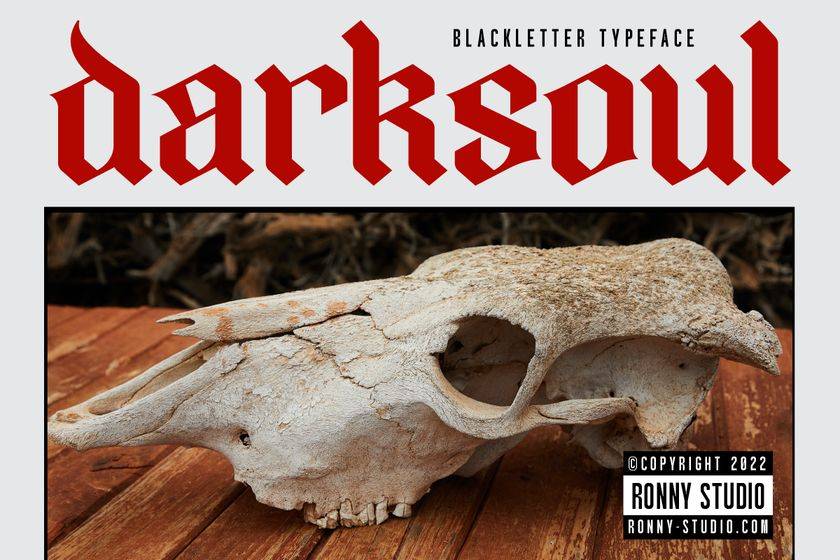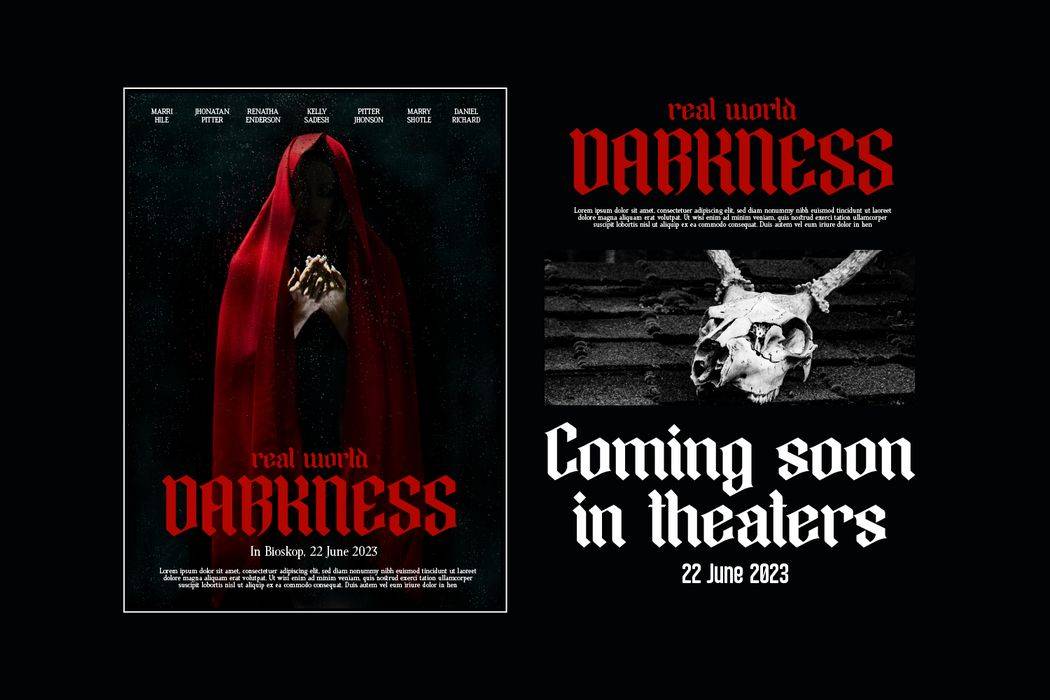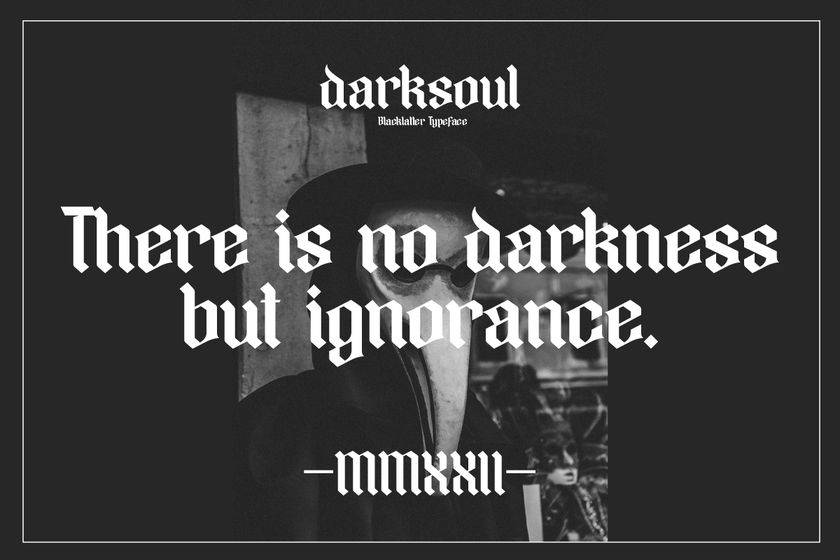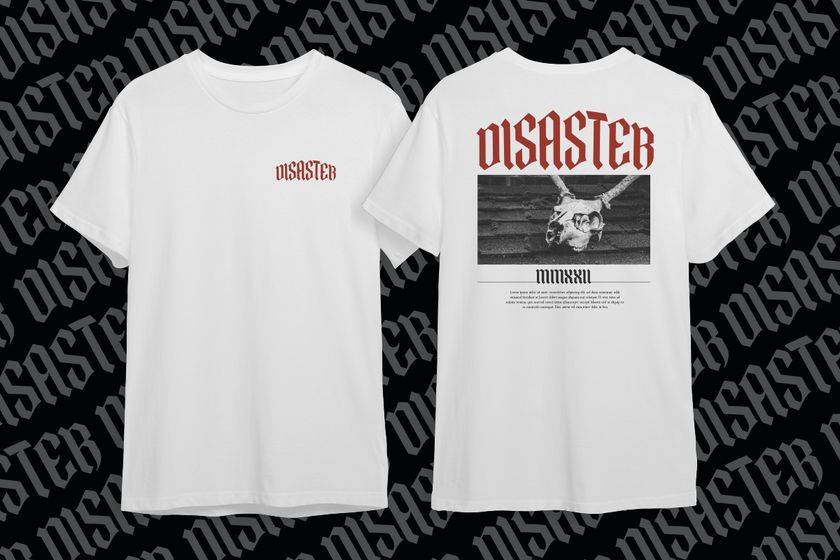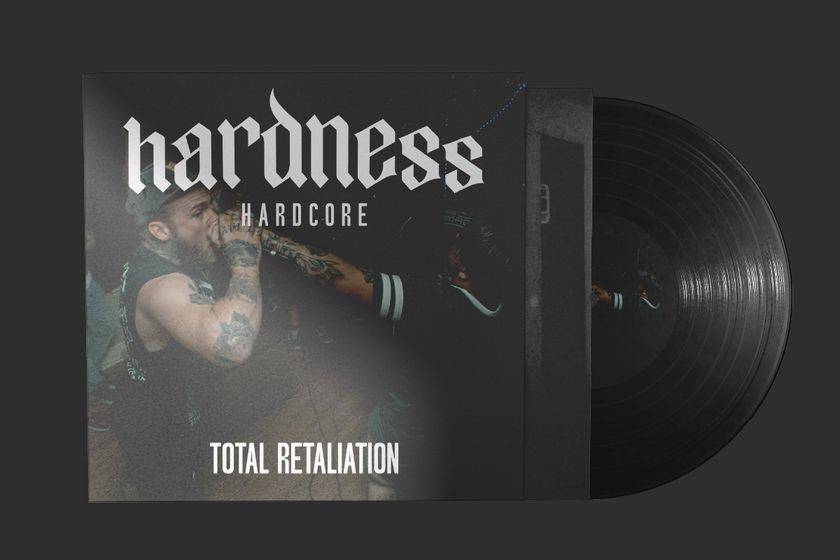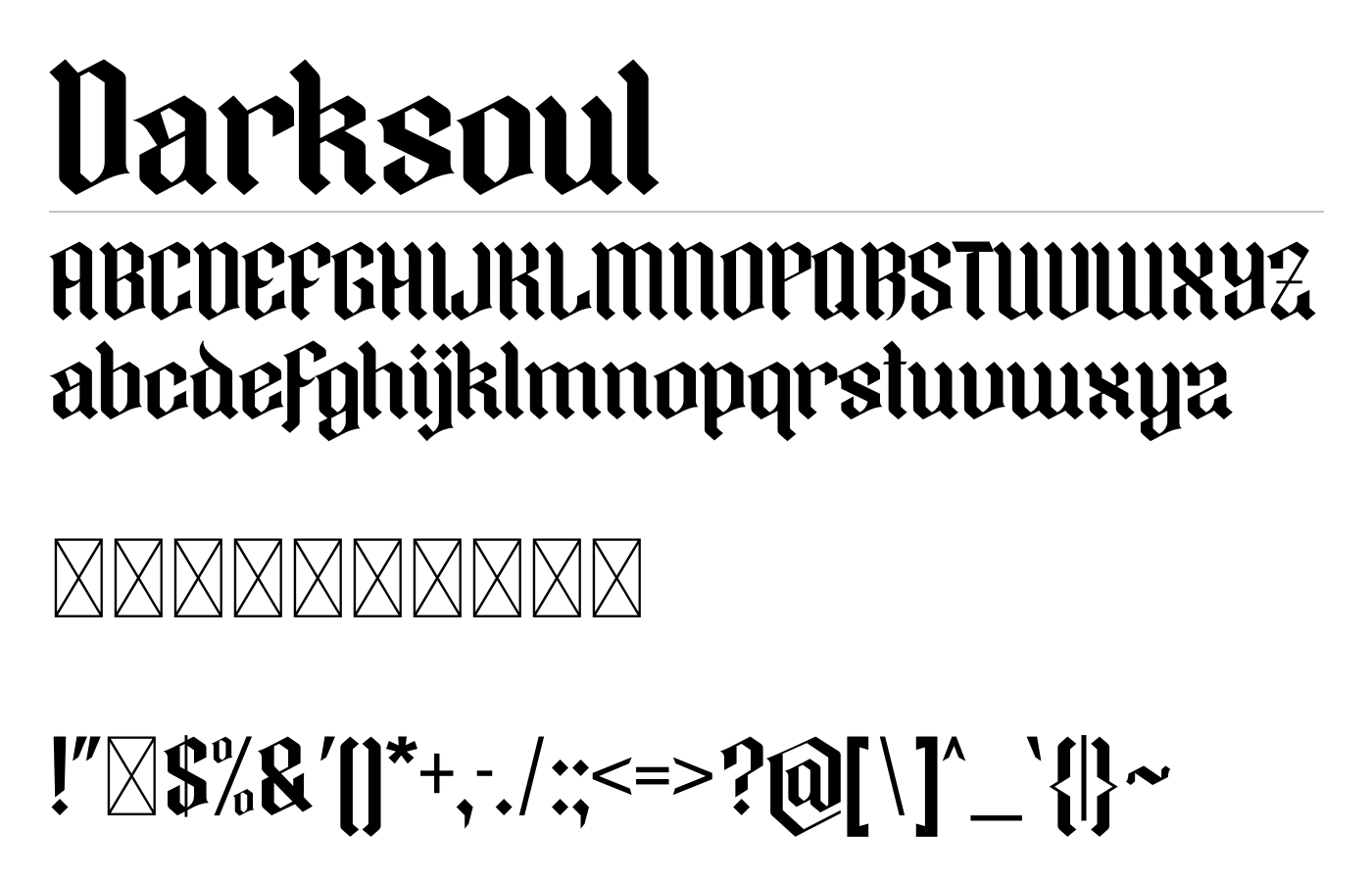
Darksoul is a blackletter serif font with a bold, condensed style and sharp, angular strokes that evoke a gothic and medieval vibe. Its high contrast between thick and thin lines, combined with intricate letterforms, makes it perfect for dramatic headlines, logos, and designs seeking a dark, historic, or edgy aesthetic. This font suits branding and creative projects where a strong, vintage character is desired.
Darksoul Font
About Darksoul Font
| Font family | Darksoul Font |
| Release date | 2022-07-09 |
| Designer | Rony Rizki Jaya |